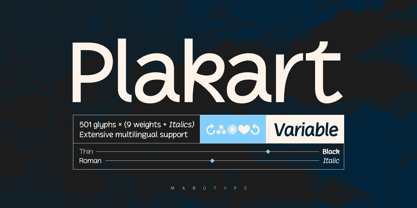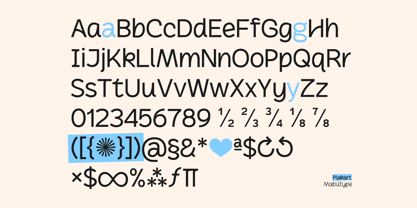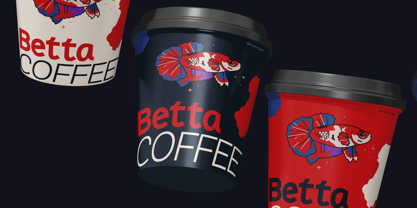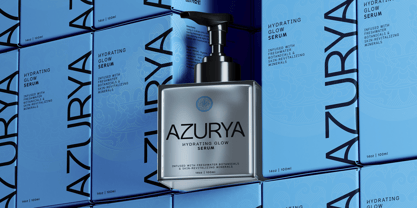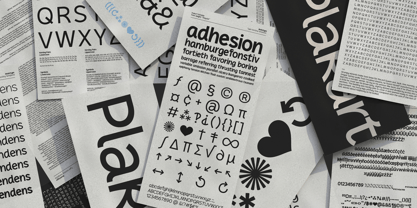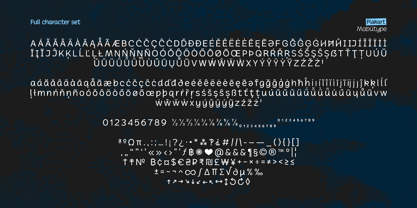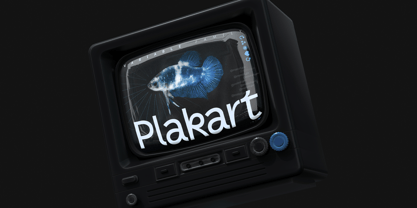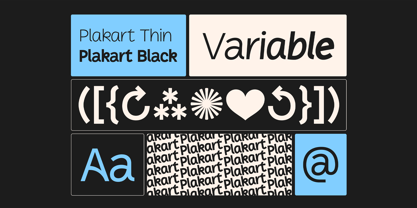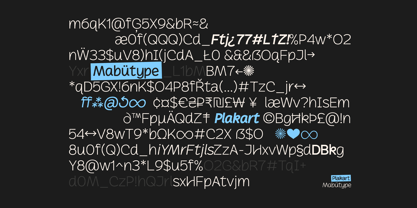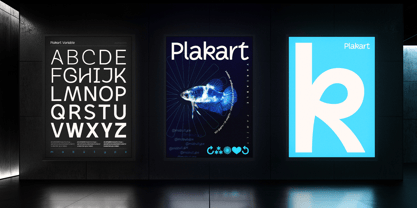
Plakart
by Mabütype
The Plakart Font Family was designed by Marcello Maziero and published by Mabütype. Plakart contains 18 styles and family package options. More about this family
Plakat is a lively sans-serif typeface that blends humanist and hand-drawn elements for a playful yet refined look. It offers stylistic alternates for the lowercase a, g, and y, along with the ampersand and @, adding versatility to your designs. With its smooth curves and consistent rhythm, Plakat creates a modern, quirky design language that adapts effortlessly to various applications—from logos and headlines to body text and packaging.   Featuring a full range of weights from Thin to Black, along with matching italics, Plakat provides flexibility for diverse typographic needs. Its extensive multilingual support ensures seamless utilization across numerous languages. With a character set exceeding 500 glyphs, it also includes distinctive symbols such as the asterism, interrobang, black heart, and more.   Discover Plakat for yourself and bring a cool, expressive touch to your next project!
Designers: Marcello Maziero
Foundry: Mabütype